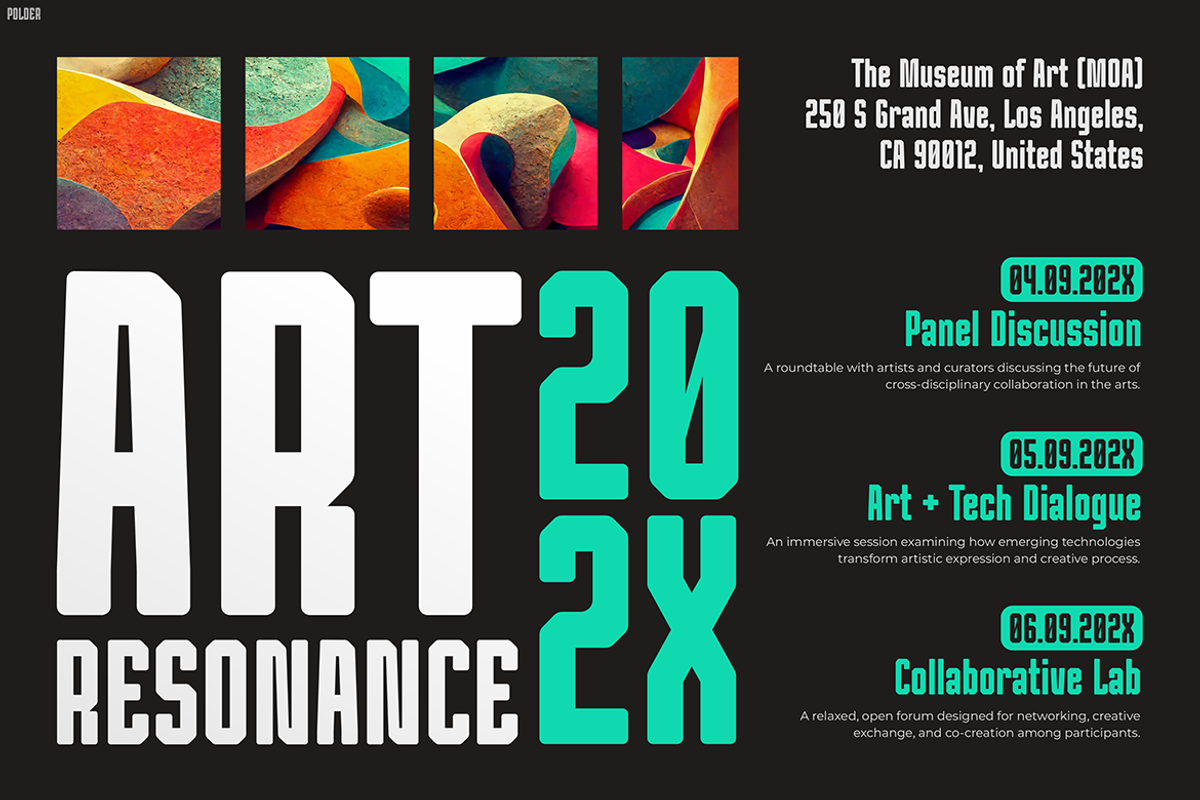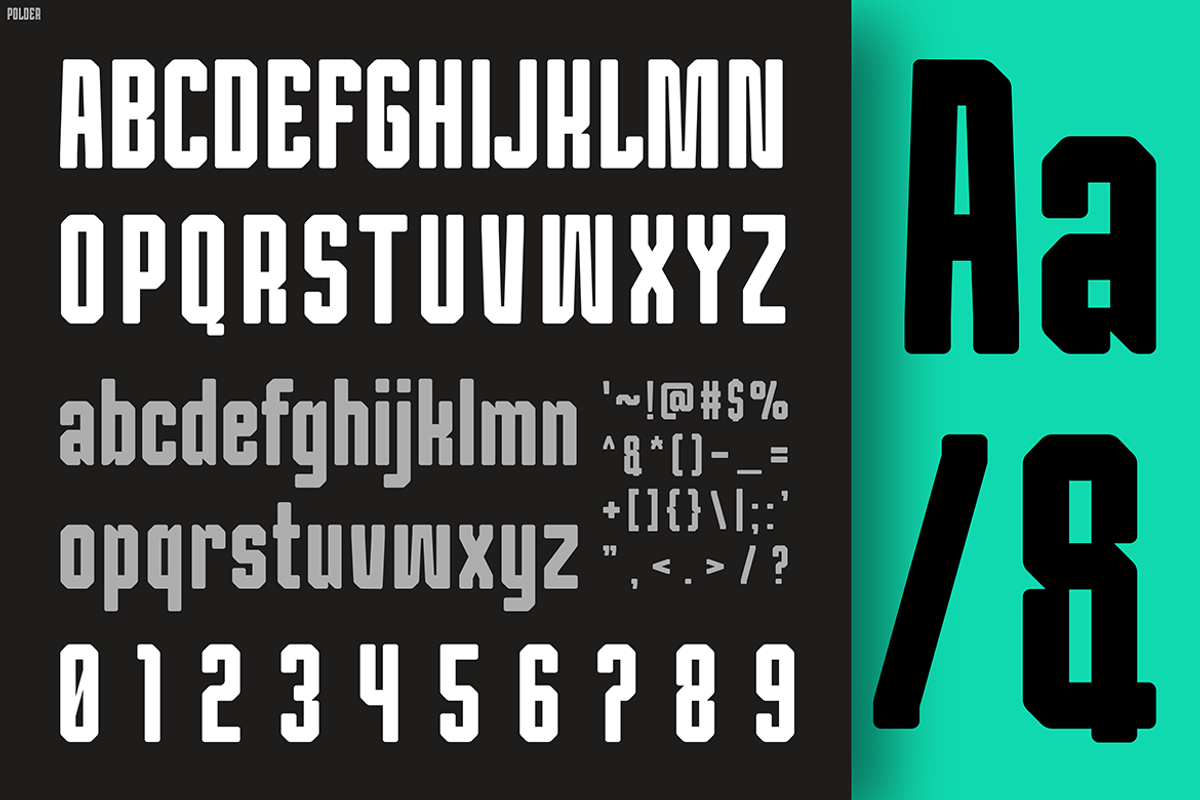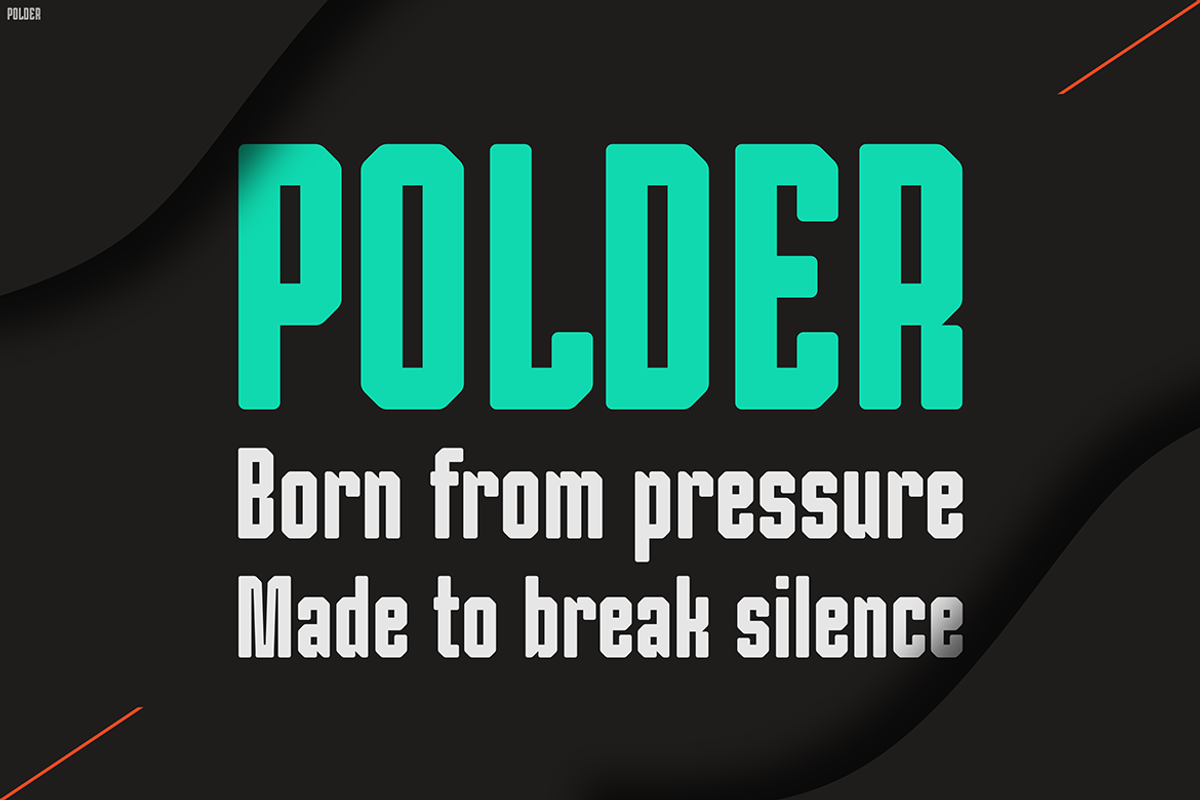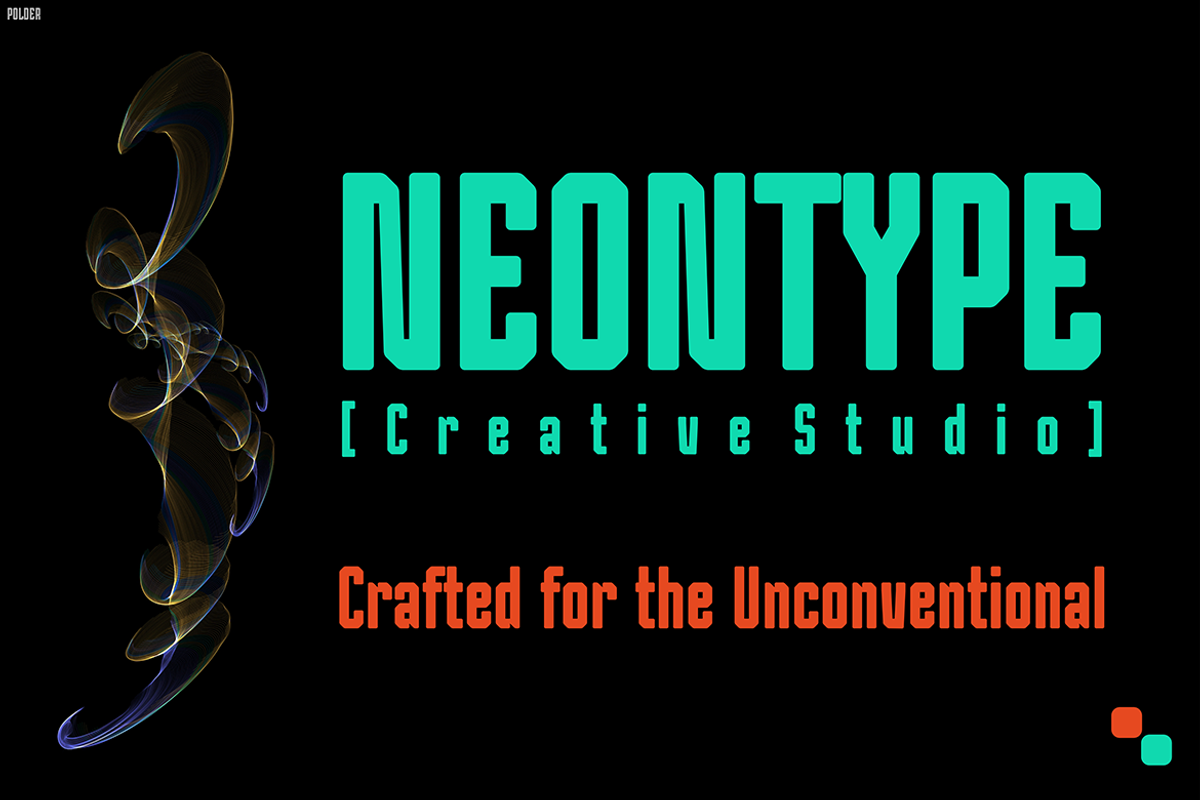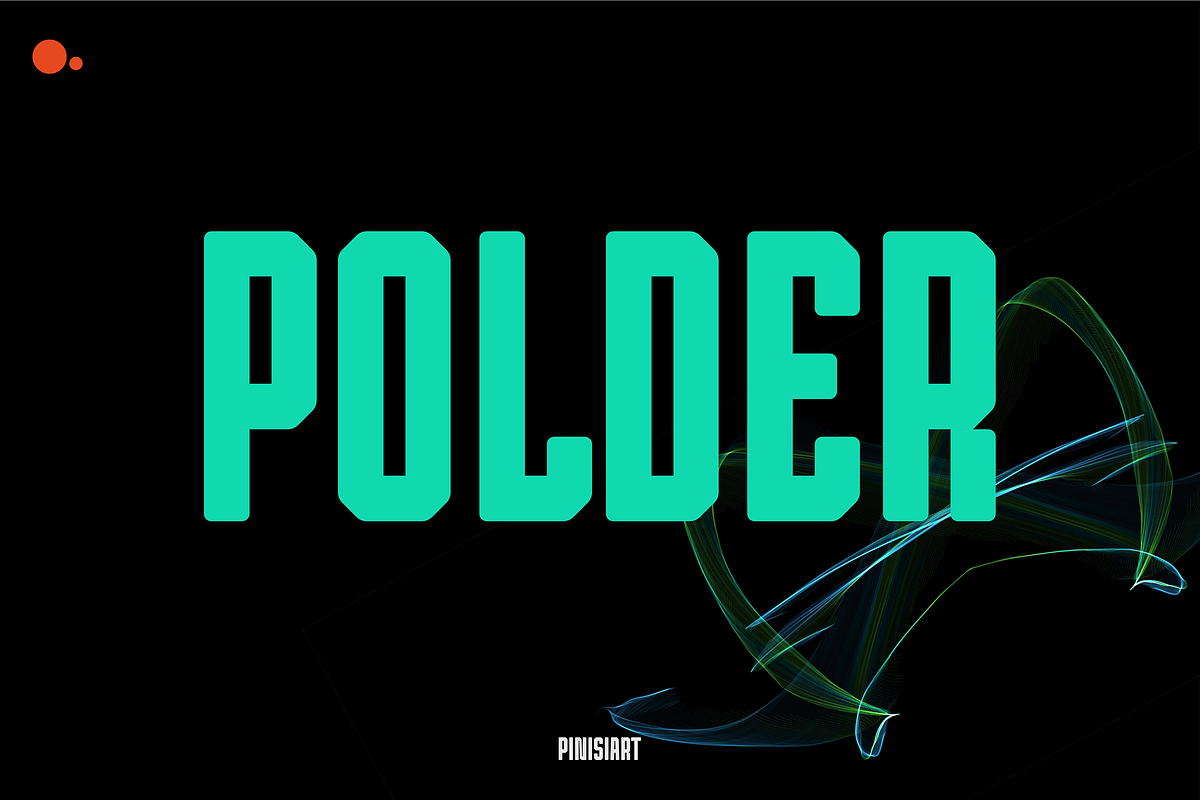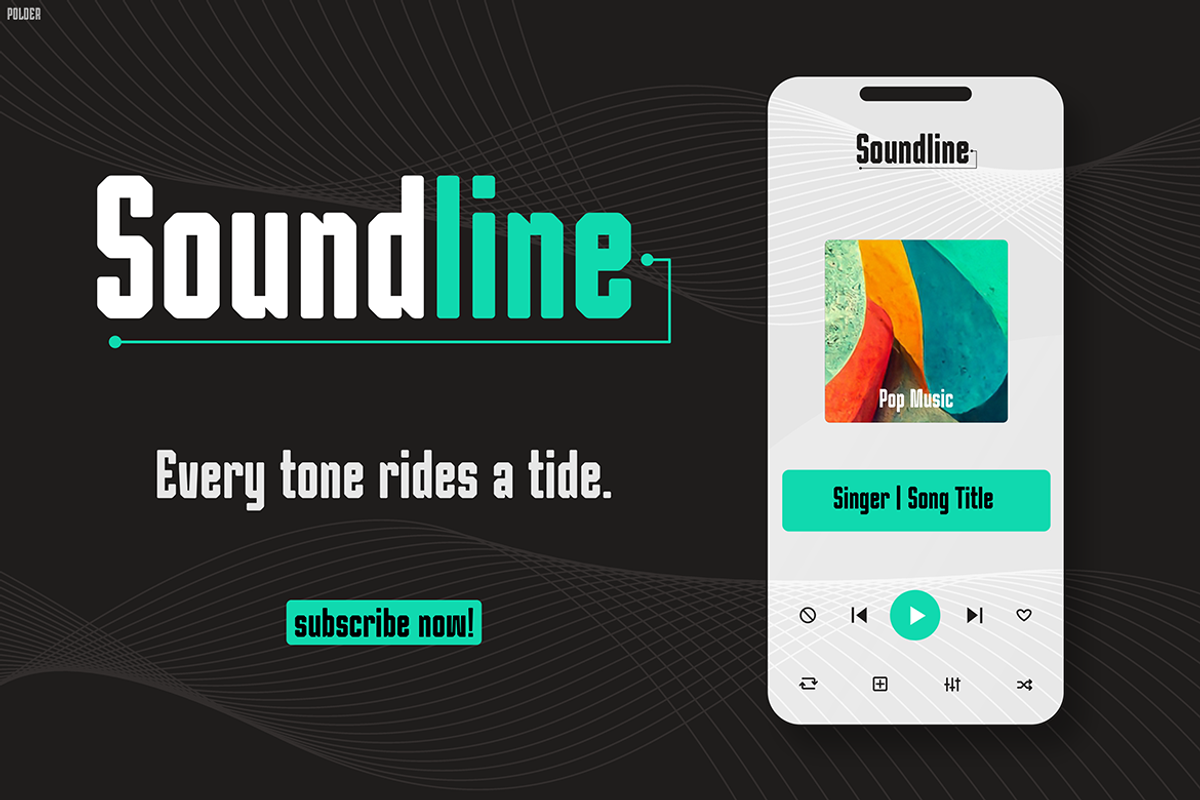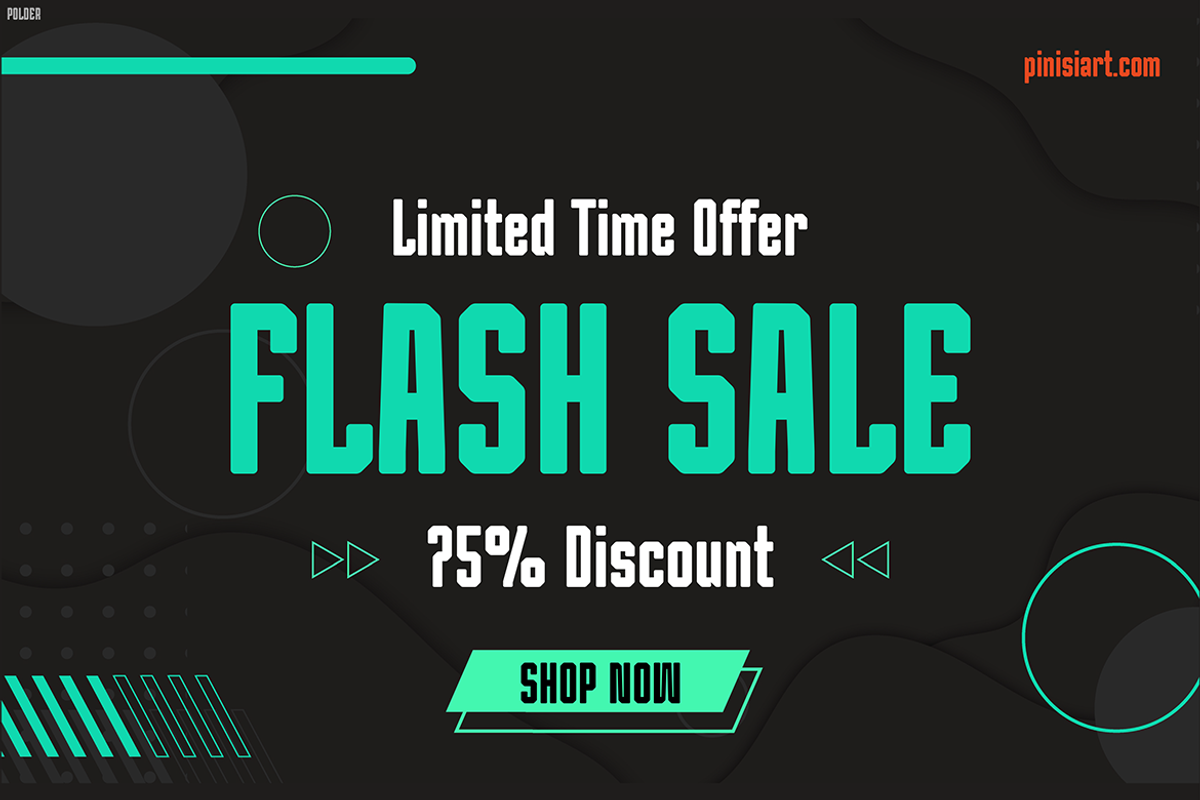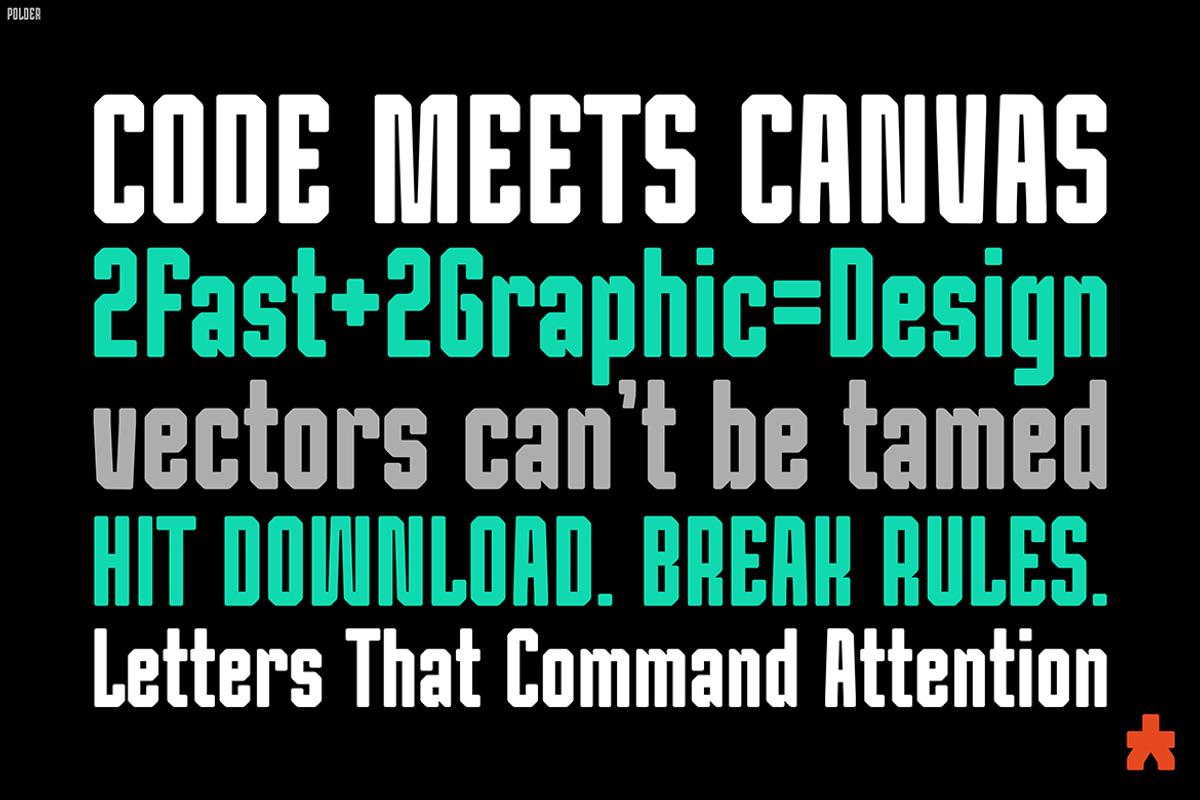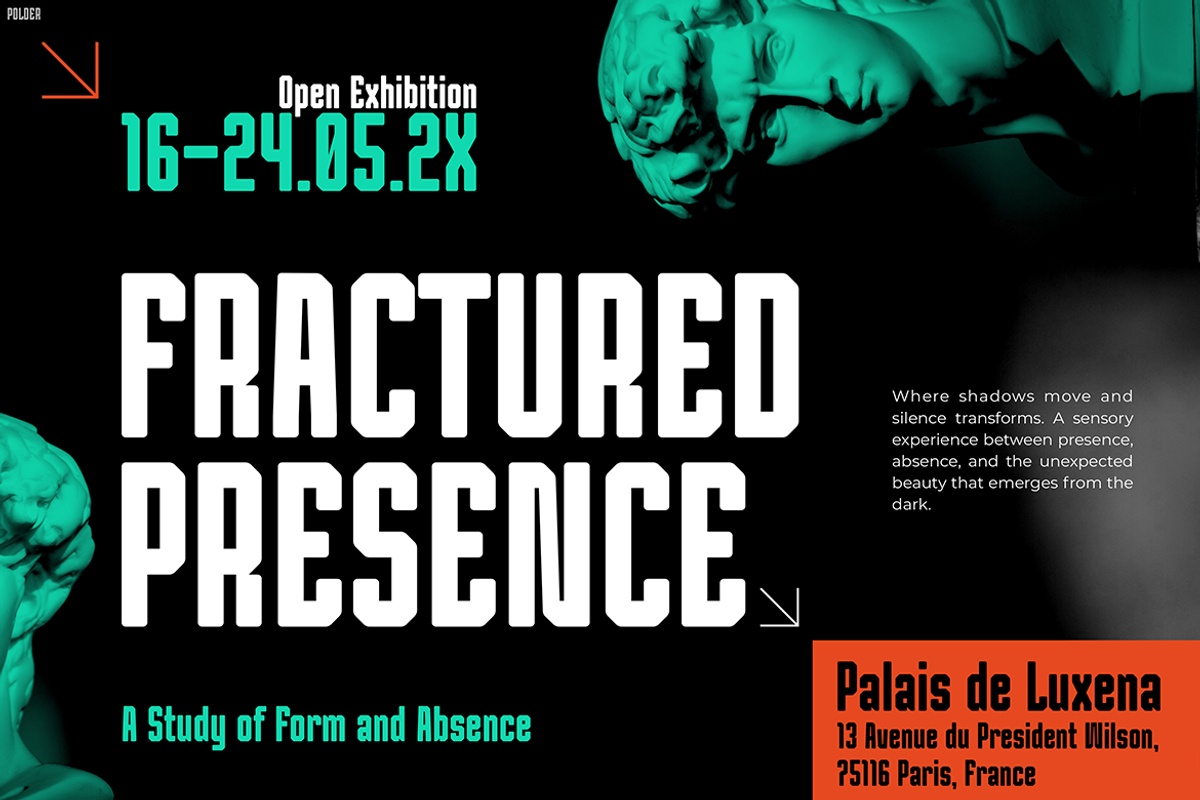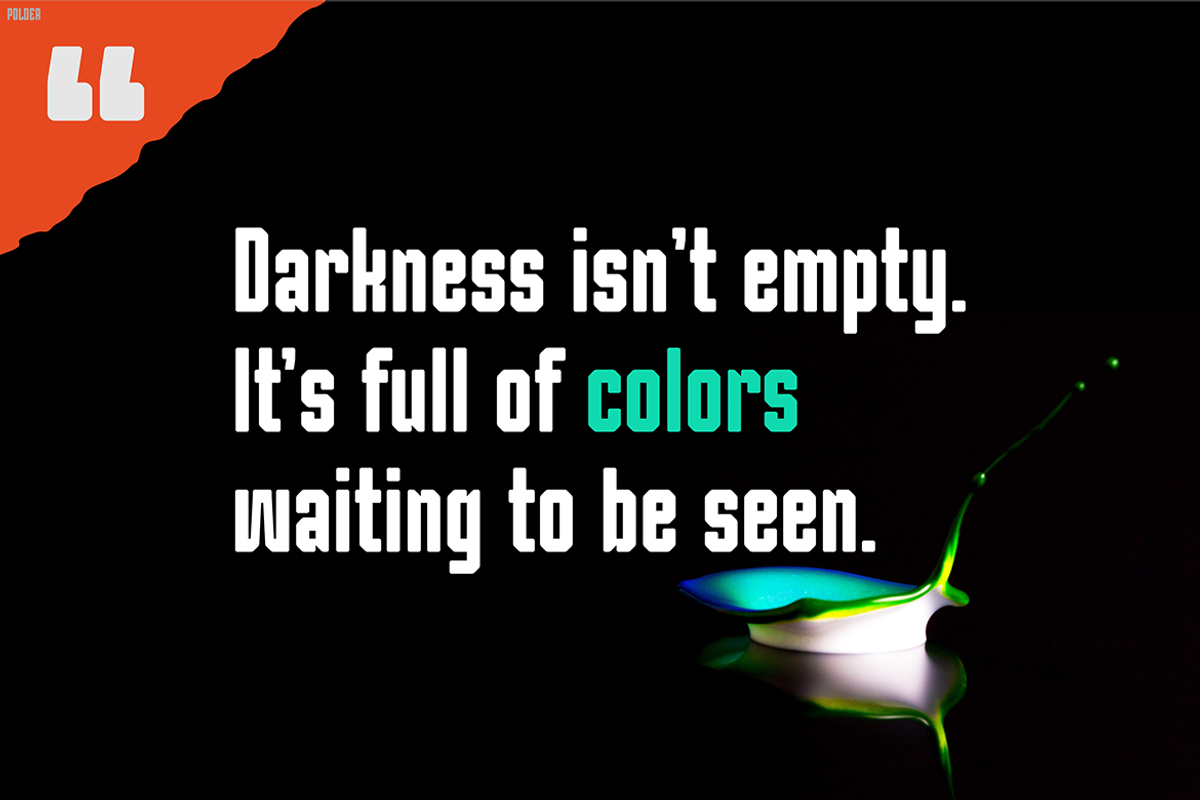
POLDER
Instagram Font POLDER – Bold, Expressive & Built for Impactful Visuals Instagram Font POLDER grabs attention the moment it appears. With sharp geometry and intense contrast, it brings a bold, brutalist energy to every layout. It doesn’t just decorate your design—it leads it. The font’s aesthetic is modern, structured, and unapologetically loud, making it perfect for high-impact visual content on platforms like Instagram.
Moreover, POLDER thrives where clarity and power are essential. Designers can use it to create punchy headlines, bold quotes, or campaign visuals that stop the scroll. Its thick strokes and angular curves create rhythm and consistency across layouts. As a result, your message remains clear—even in fast-moving feeds or crowded interfaces.
Unlike many trendy fonts, POLDER balances character and usability. It delivers attitude while staying clean and legible. For example, it blends perfectly into neon-style visuals, dark mode UIs, or minimalist poster designs. In addition, the font includes multilingual support and stylistic alternates, allowing creators to explore diverse ideas without compromise, POLDER is more than an eye-catcher—it’s a functional toolkit for dynamic communication.